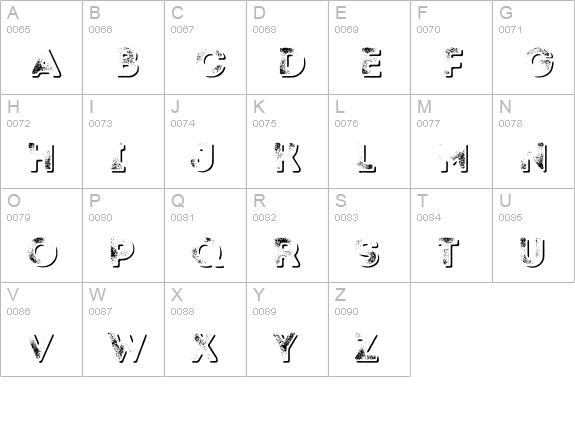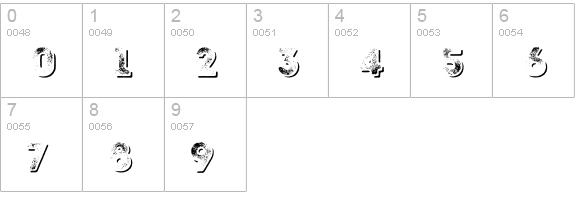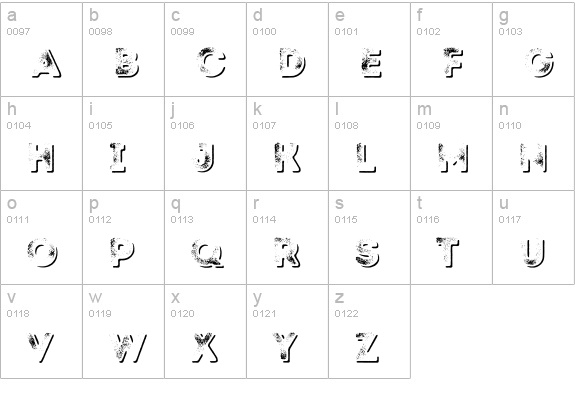
Intro Rust G Fill Shade Font Details
The Intro Rust G Fill Shade font is a stunning display typeface that exudes a sense of vintage charm with a modern twist. Its intricate design features a unique fill shade effect that adds depth and dimension to any text or design. This font is perfect for creating eye-catching headlines, logos, posters, and more. What makes this font even more special is that it is available for free download at FontsMarket.com. This means you can easily add this versatile typeface to your font collection without any cost, making it a valuable resource for designers, creatives, and typography enthusiasts alike. Embrace the creativity and versatility of Intro Rust G Fill Shade font today and elevate your projects with its distinctive style.